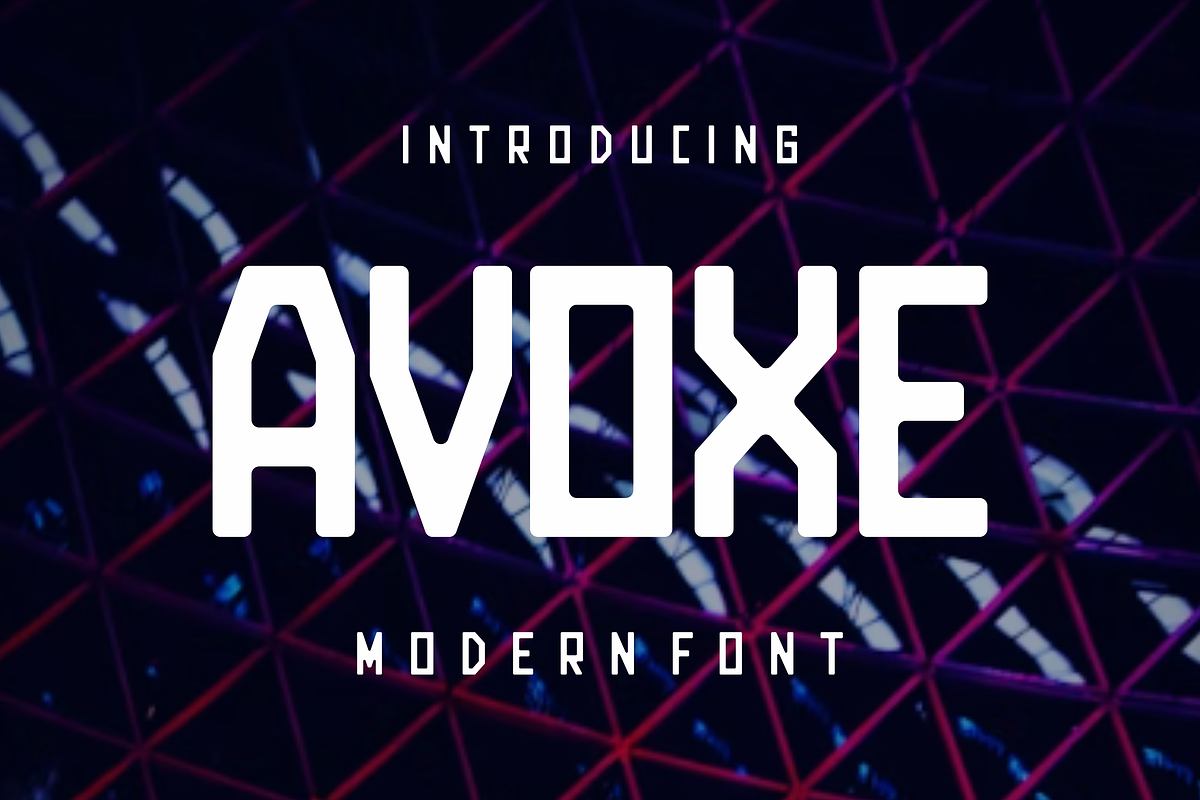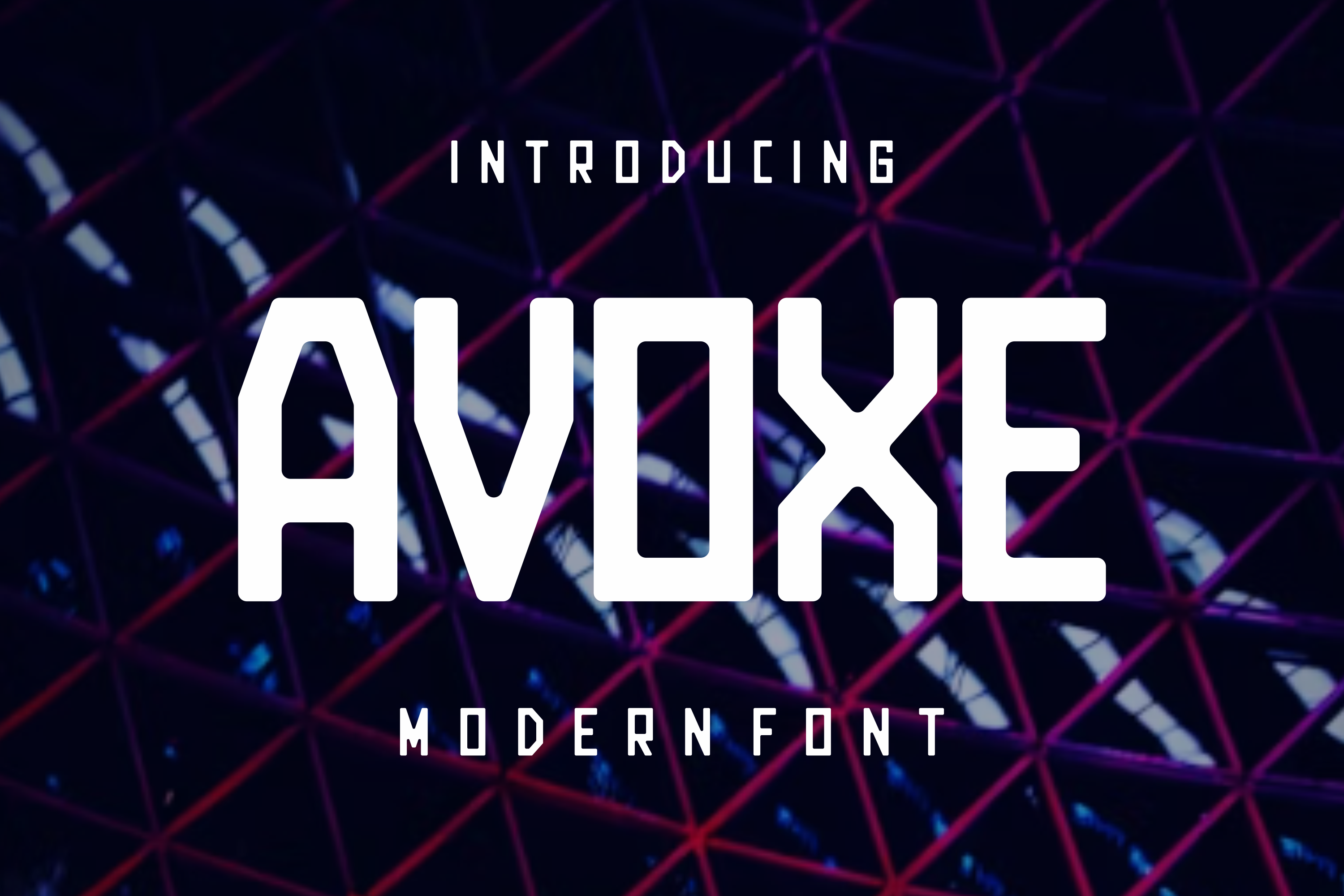
Avoxe - Technology Display Font
Avoxe - Technology Display Font Perfectly suited on print/screen. it’s perfect for Branding, name card, poster, logo, magazine, cover, banner, t-shirt and headers, or even large-scale artwork.